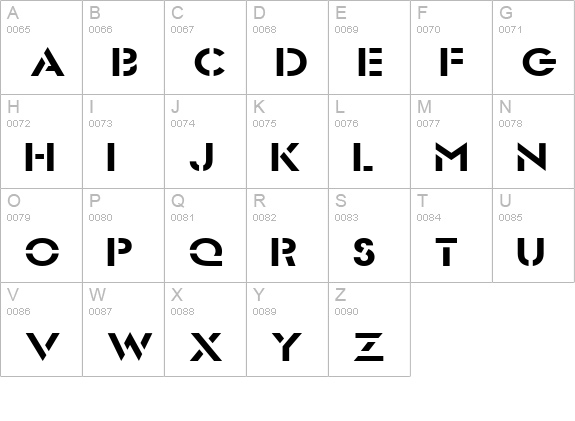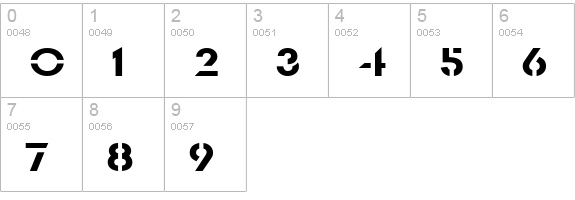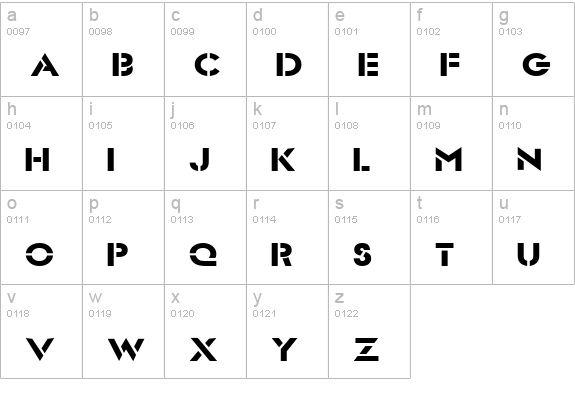
Stencil SansExtended Normal Font Details
Stencil SansExtended Normal is the standard, neutral variant in the Stencil typeface family \xE2\x80\x94 well suited to general body text, paragraphs, and standard typographic work.
Introducing Stencil SansExtended Normal font, a versatile and modern typeface that combines sleek lines with a touch of elegance. This font exudes a contemporary feel while maintaining a classic appeal, making it perfect for a wide range of design projects. With its clean and crisp letterforms, Stencil SansExtended Normal is ideal for both headings and body text, ensuring readability and impact. What sets this font apart is that it is available for free download at FontsMarket.com. This means that you can easily access and use Stencil SansExtended Normal in your projects without any cost or restrictions. Whether you are designing a website, creating social media graphics, or working on a print publication, this font is a valuable addition to your toolkit. Don't miss out on the opportunity to enhance your designs with the sophisticated look of Stencil SansExtended Normal font. Download it for free today and elevate your projects with this stylish and versatile typeface.